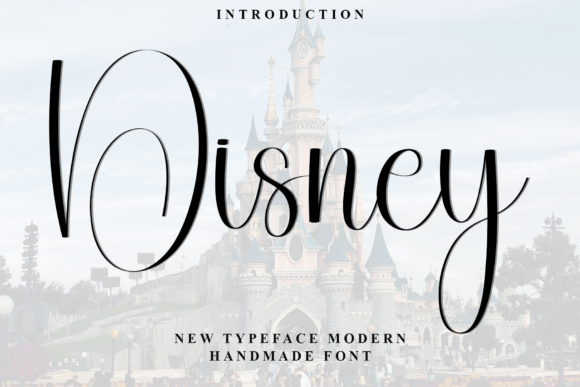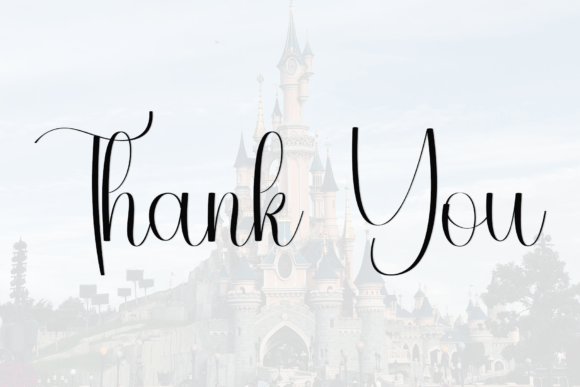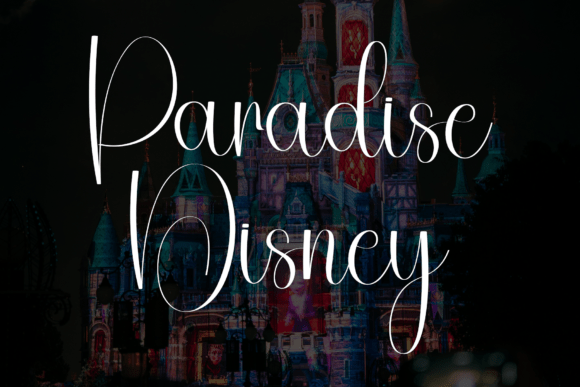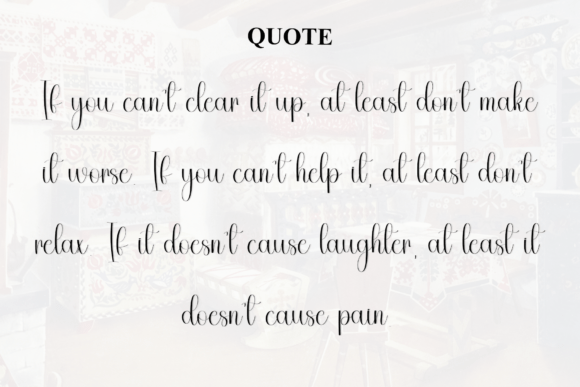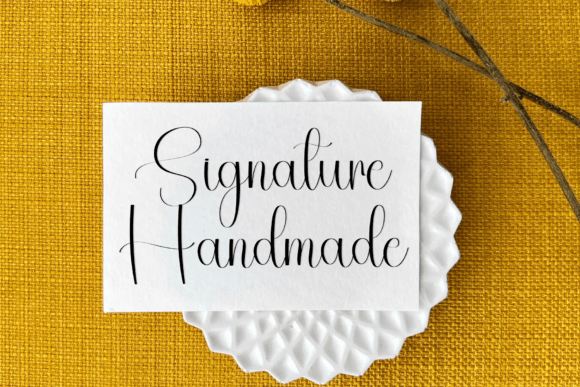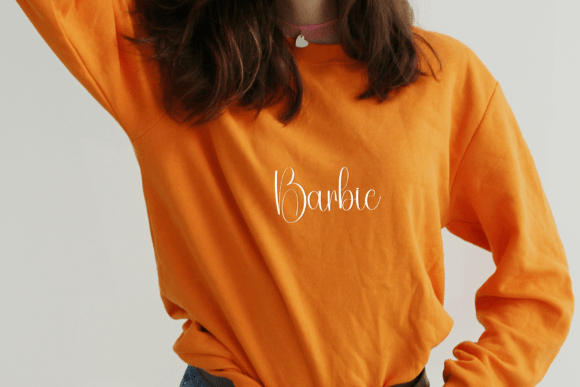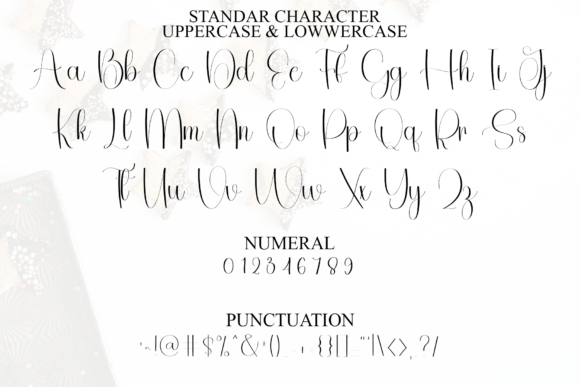
The Magic of the Holiday Season: Introducing the Disney Font
As the snowflakes start to fall and the festive lights twinkle to life, many of us can’t help but feel a rush of creative energy. It’s the perfect time to break out the glue, glitter, and of course, the fonts that capture the essence of the season. For designers and crafty enthusiasts alike, the Disney Font is a long-awaited holiday companion that brings a touch of whimsy and wonder to any project.
Perfect for greeting cards, gift tags, and holiday-themed crafts, the Disney Font is a valuable addition to any designer’s toolkit. With its decorative elements and playful flair, it adds a dash of enchantment to your typography, transporting your words to a world of holiday magic. Whether you’re creating a festive card or a whimsical gift tag, the Disney Font is sure to bring a smile to the faces of your loved ones.
Disney Font Key Features
- Font Family: Disney’s font family includes several variations, including Disney Fairies, Disney Princess, and Disney’s Fairy Tale Weddings.
- Unique Characteristics: The Disney font is known for its whimsical and elegant feel, with intricate details and flourishes that evoke a sense of magic and wonder. The font is often used to add a touch of Disney magic to various design projects.
Disney Font Review
As a designer, I’ve had the chance to work with the Disney Font, and here’s my honest review.
- The Disney Font is instantly recognizable and iconic. It’s a unique and memorable design that’s synonymous with the Disney brand.
- The font is highly versatile and can be used in a variety of contexts, from logos and branding to packaging and signage.
- The font’s distinctive curves and lines give it a sense of whimsy and playfulness, making it perfect for children’s entertainment and family-friendly brands.
- The Disney Font can feel overly complex and difficult to read in certain contexts, such as body text or long blocks of text.
- The font’s distinctive design can make it challenging to use in situations where a more straightforward, sans-serif font is needed.
The Disney Font is a unique and iconic design that’s perfect for brands and projects that need to evoke a sense of whimsy and playfulness. While it may have some limitations, it’s a valuable tool for designers looking to create memorable and recognizable branding.
For the best results, use the Disney Font in conjunction with other nostalgic elements, such as vintage graphics or classic illustrations. Experiment with different font sizes and colors to create a visually appealing design. Consider pairing the font with other fonts to create a unique and eye-catching look.
The Disney Font is perfect for creating vintage-inspired designs, such as:
– Retro-themed posters
– Classic-style invitations
– Nostalgic logos
– Whimsical branding